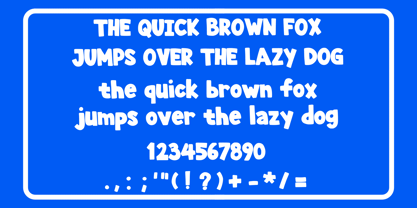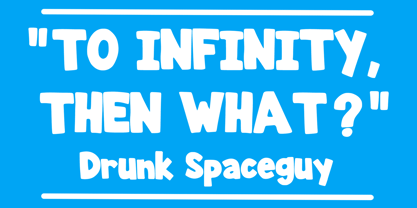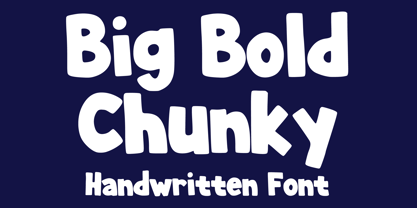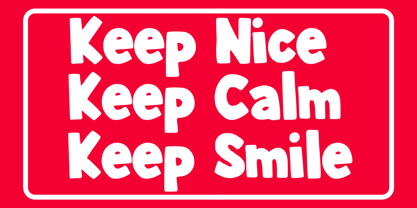
Big Bold Chunky
by Mvmet
The Big Bold Chunky Font Family was designed by Gabriel Valentinus and published by Mvmet. Big Bold Chunky contains 1 styles.
Big Bold Chunky is a vibrant and playful cartoon display font that adds a fun and bold touch to all your creative projects. Perfect for a wide range of applications, this font shines in t-shirts, children's book designs, party invitations, greeting cards, stickers, posters, and banners. Its chunky style and cheerful vibe make it an excellent choice for any design that aims to capture attention and evoke joy. Embrace the versatility of Big Bold Chunky to create eye-catching designs that resonate with both kids and adults alike!
Designers: Gabriel Valentinus
Publisher: Mvmet
Foundry: Mvmet
Design Owner: Mvmet